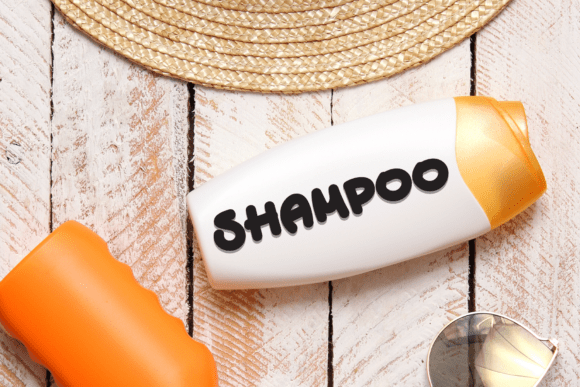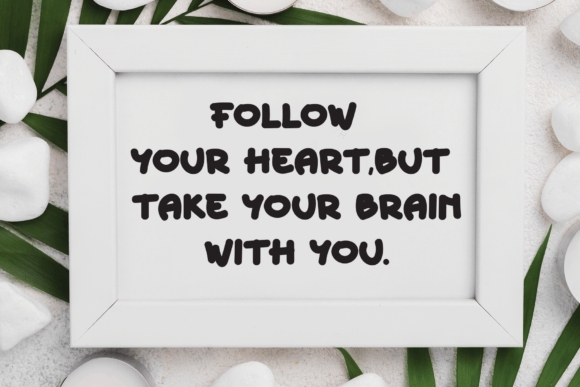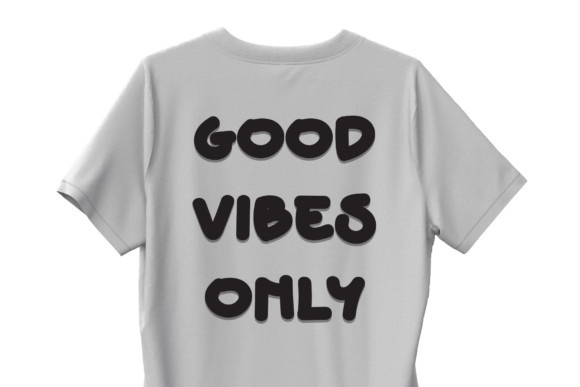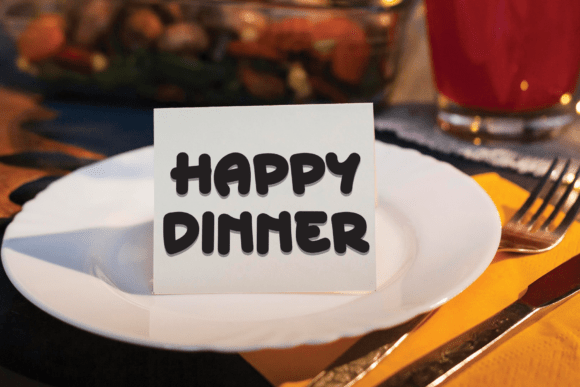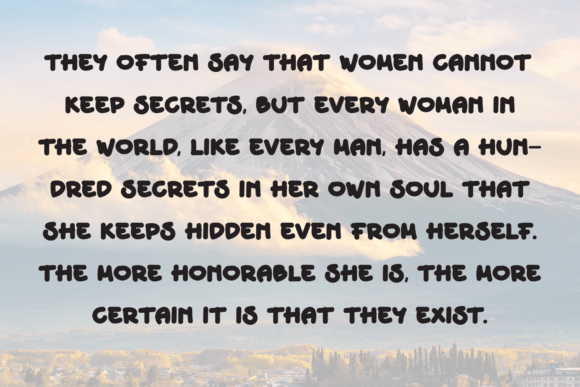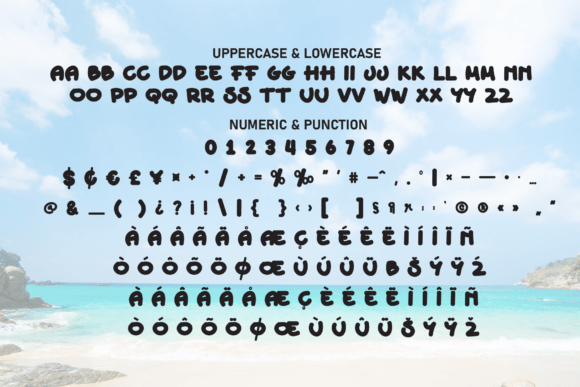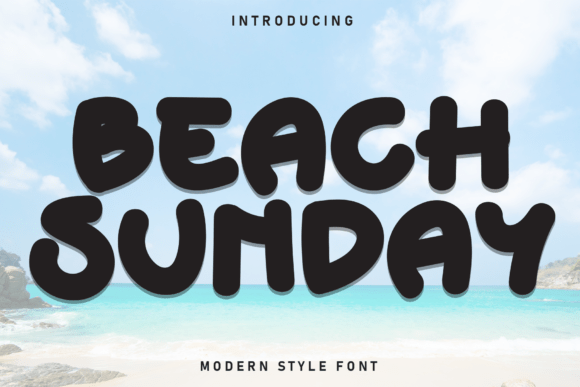
Introducing Beach Sunday Font: The Perfect Blend of Fun and Relaxation
Are you looking for a font that captures the essence of a sunny beach day? Look no further than Beach Sunday Font, a neat and casual display font that radiates fun and relaxation. With its clean lines and easygoing vibe, this cheerful typeface is perfect for summer posters, event flyers, and playful branding.
The Characteristics of Beach Sunday Font
Beach Sunday Font is designed to bring a breezy, laid-back feel to any creative project or message. Its clean lines and simple shapes make it highly legible, while its casual and playful vibe evokes the feeling of a relaxing day at the beach. The font’s characters are carefully crafted to convey a sense of fun and friendliness, making it perfect for designs that require a carefree and approachable tone.
Perfect for Summer Posters and Event Flyers
Summer is here, and with it comes a wave of outdoor events and activities. Whether you’re designing posters for a beach festival, a summer concert, or a casual gathering, Beach Sunday Font is the perfect choice. Its fun and playful vibe will instantly grab the attention of your audience and convey the excitement of the event. The font’s clean lines and simple shapes also make it easy to read, even from a distance.
Playful Branding Made Easy
Beach Sunday Font is not just limited to posters and flyers; it’s also perfect for playful branding and advertising. Whether you’re creating a logo, a tagline, or a social media post, this font will add a touch of fun and relaxation to your design. Its casual and approachable vibe makes it perfect for brands that want to convey a sense of friendliness and approachability.
Why Designers and Crafters Love Beach Sunday Font
Beach Sunday Font has quickly become a favorite among designers and crafters, and for good reason. Here are just a few reasons why:
- Unique and eye-catching: Beach Sunday Font is a unique and eye-catching font that will instantly elevate your designs.
- Highly versatile: The font can be used for a wide range of projects, from posters and flyers to logos and social media posts.
- Easy to read: The font’s clean lines and simple shapes make it highly legible, even from a distance.
- Fun and playful: Beach Sunday Font is the perfect choice for designs that require a fun and playful vibe.
Tips for Using Beach Sunday Font
Here are a few tips for using Beach Sunday Font in your designs:
- Use it for headlines: Beach Sunday Font is perfect for headlines and titles, where its fun and playful vibe can really shine.
- Pair it with other fonts: The font pairs well with other fonts, such as sans-serif fonts for body text.
- Experiment with colors: Beach Sunday Font looks great in a range of colors, from bright and bold to pastel and soft.
- Keep it simple: Don’t be afraid to keep your design simple and clean, and let the font do the talking.
Beach Sunday Font is a unique and versatile font that’s perfect for designers and crafters looking to add a touch of fun and relaxation to their designs. With its clean lines, simple shapes, and playful vibe, this font is sure to elevate your designs and grab the attention of your audience. Whether you’re designing posters, flyers, logos, or social media posts, Beach Sunday Font is the perfect choice.